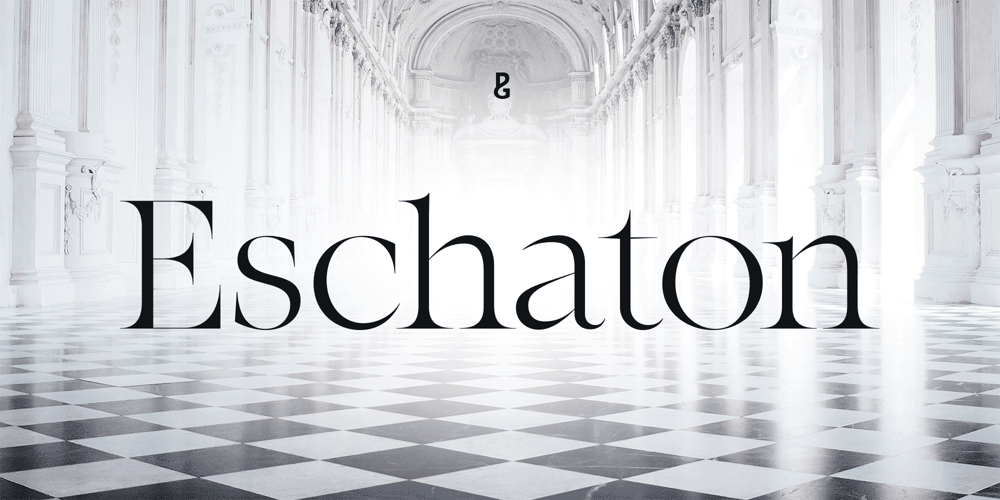
Eschaton Font Family was designed by Paulo Goode and published by Paulo Goode. Eschaton contains 36 styles and family package options. Eschaton is an exquisite transitional typeface whose delicate, high-contrast style exudes confidence – delivering your message with composure and clarity. This 36-font type family has a purposeful, contemporary stance that excels on screen and in print by way of its three optical sizes.Eschaton’s elegantly clean and simple forms allow your text, your headlines, your message to stand proud and be heard – finding a moment of clarity in today’s world of continual visual bombardment.Eschaton is a refined display typeface in its standard form, the full family includes Text (lower contrast) and Xtra (extreme contrast) optical sizes to cater for further typographic demands. Weights range from light to black in both roman and italic styles. The default figure type is set to old-style, however, proportional figures are just a click away if you prefer. Eschaton has an extensive character set that covers all Latin European languages.NEW Looking for the perfect pairing for Eschaton? Then please take a look at Immanent, which has been designed with the same proportions and range of weights and optical sizes as Eschaton.See full details and hi-res examples at https://paulogoode.com/eschatonKey Features• Six Weights• Roman & Italic• Three Optical Sizes• 450+ Glyphs